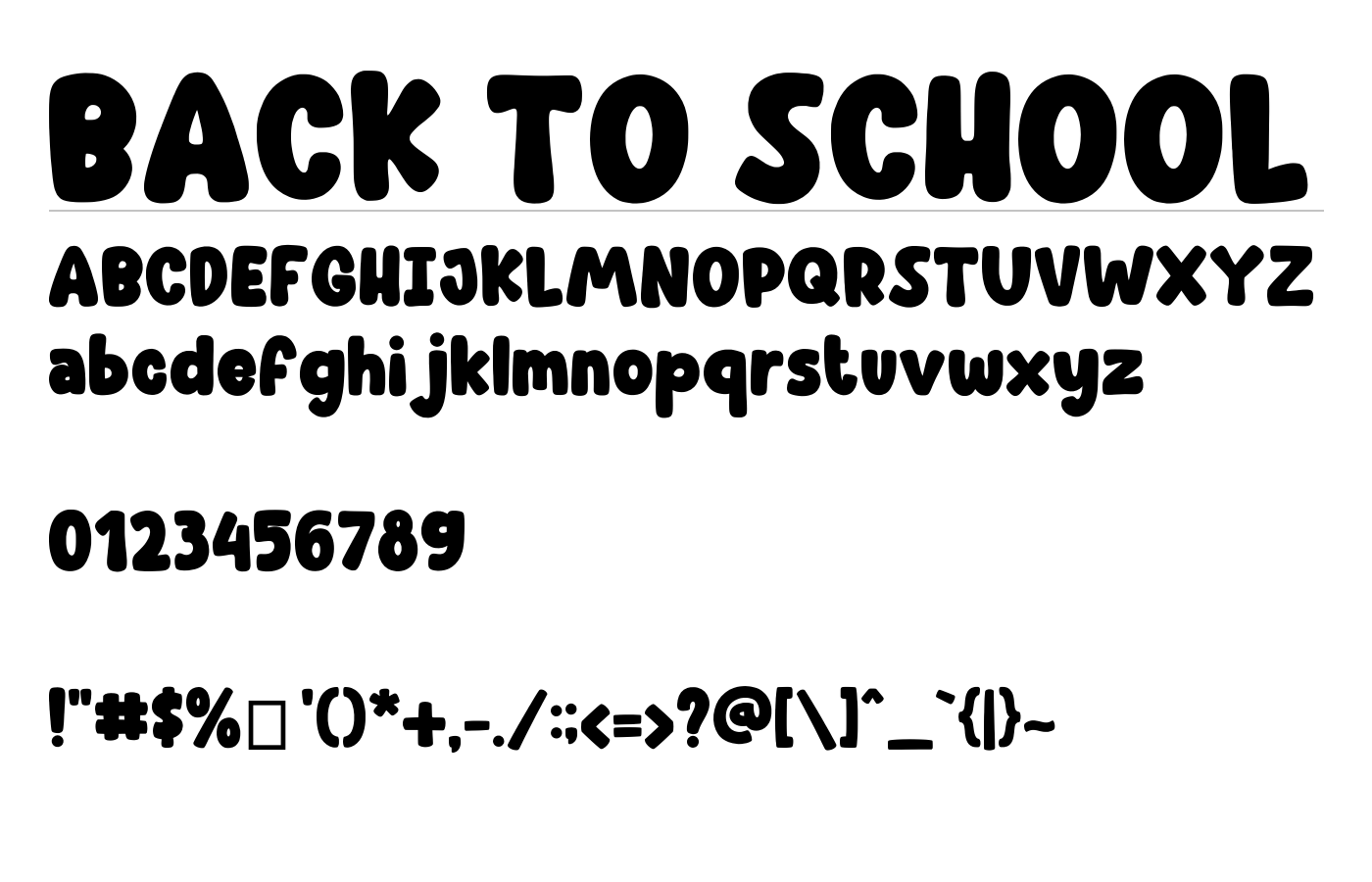
BACK TO SCHOOL is a bold and playful rounded sans serif font with a chunky, friendly appearance that feels informal and approachable. Its thick, soft-edged letterforms with high x-height and uneven shapes give it a childlike, energetic vibe, making it perfect for school-related projects, kids’ branding, and fun posters. This font works best in headlines and display uses where a cheerful, casual mood is desired.
BACK TO SCHOOL Font
About BACK TO SCHOOL Font
| Font family | BACK TO SCHOOL Font |
| Designer | Mozatype |